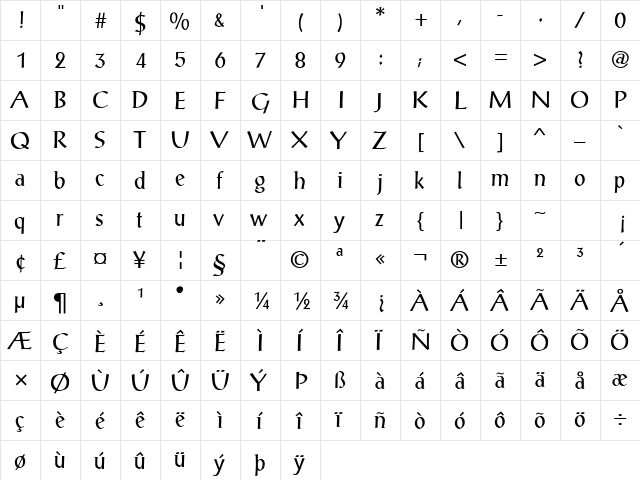
Zanders Normal
Design Context for Zanders Typeface
Zanders takes a measured approach to typography — its balanced proportions and neutral character make it a reliable workhorse for both digital and print work.